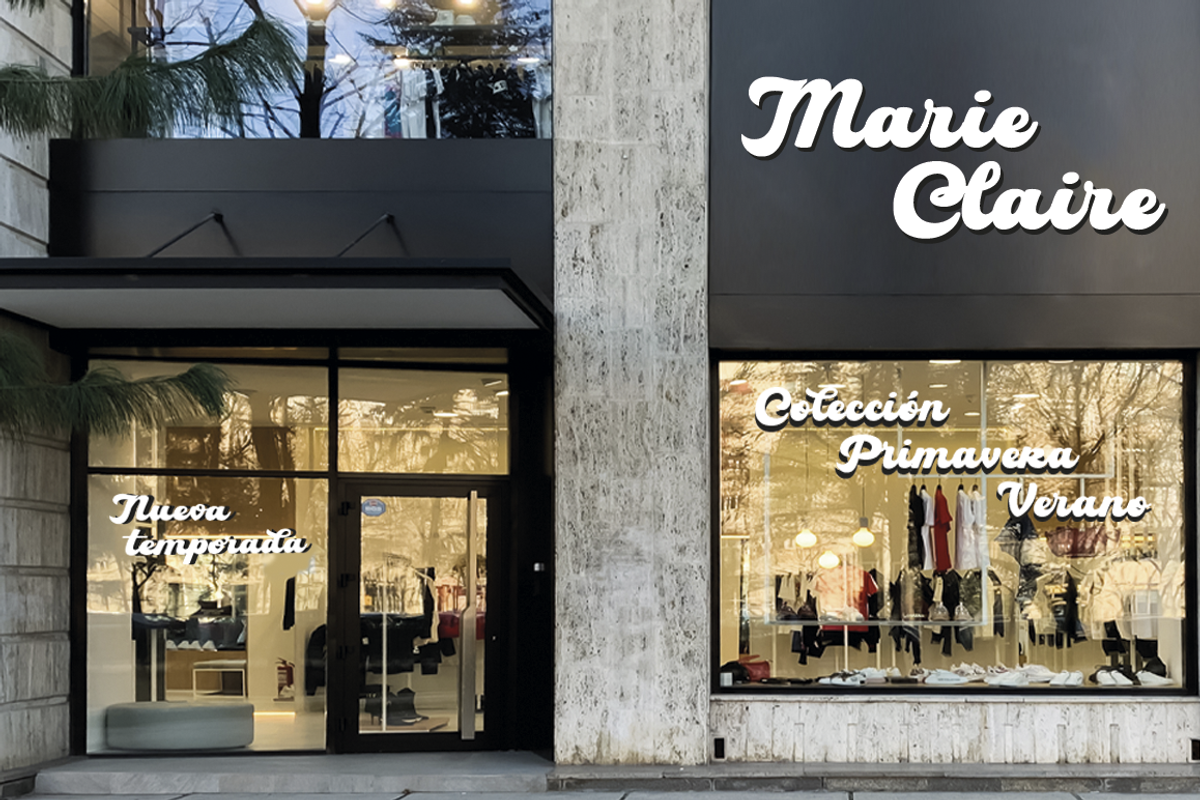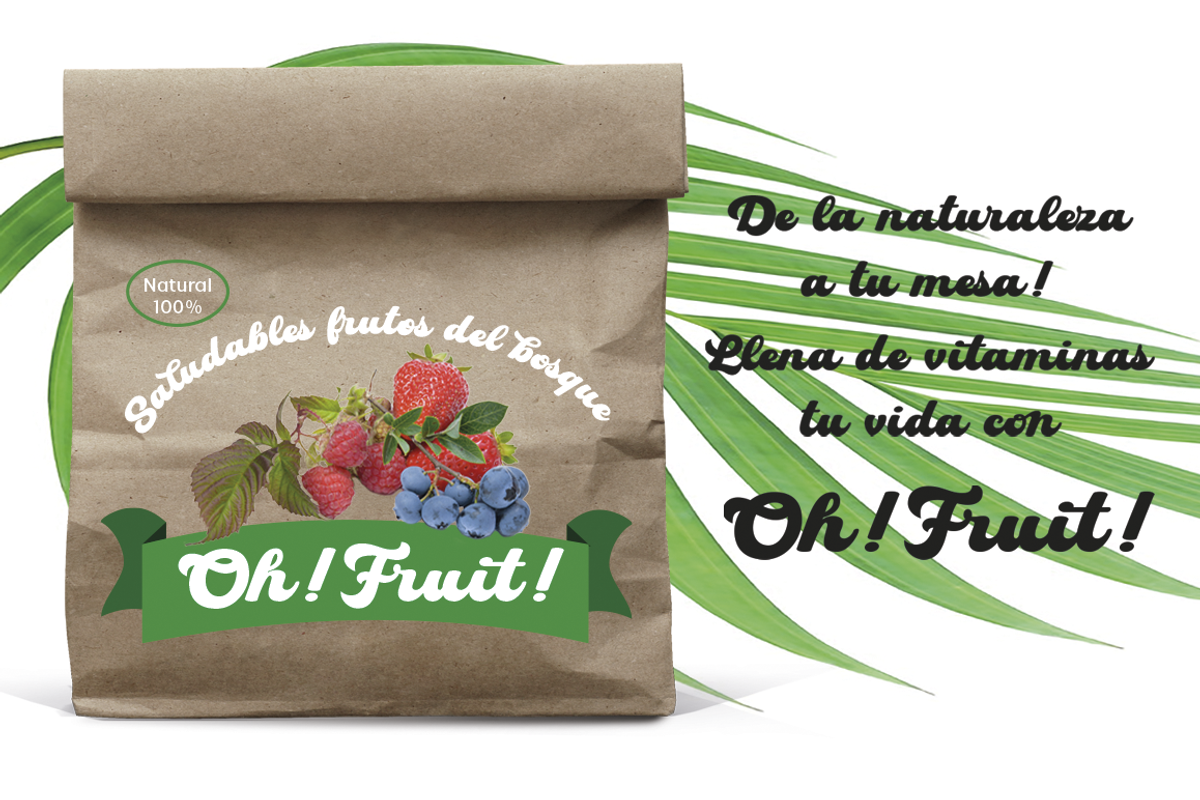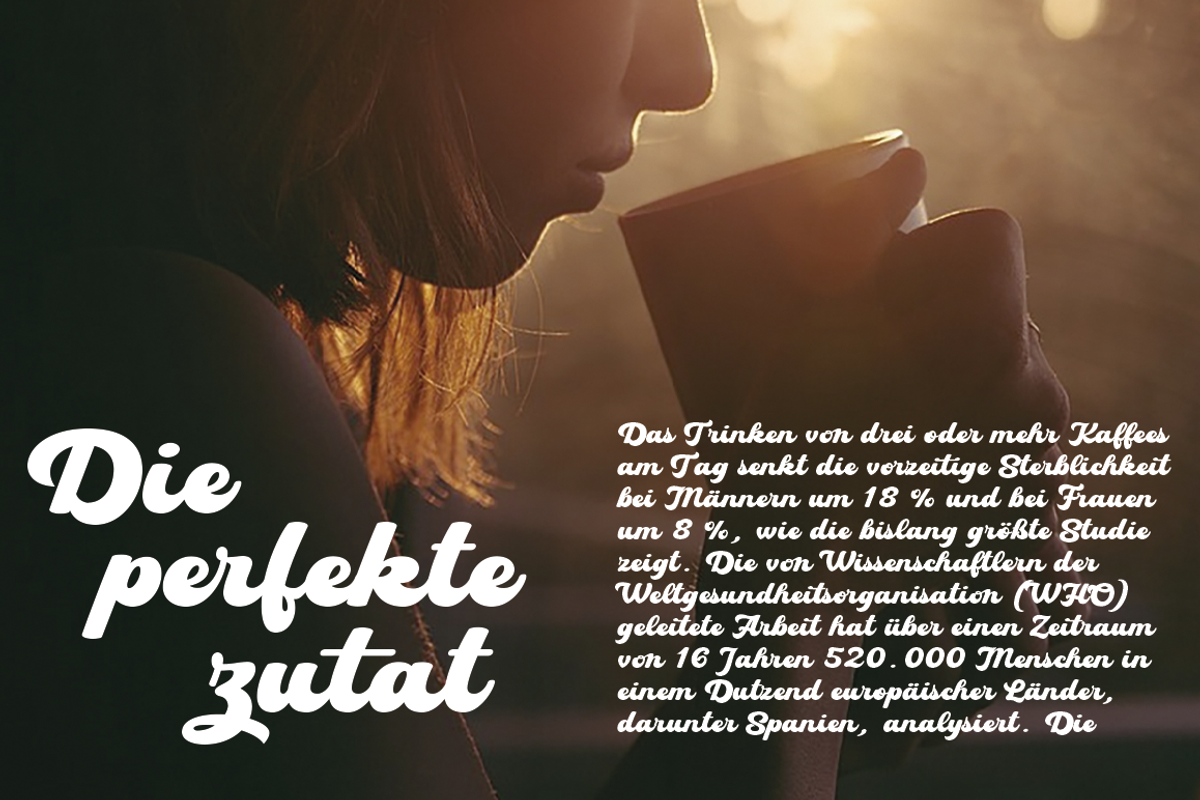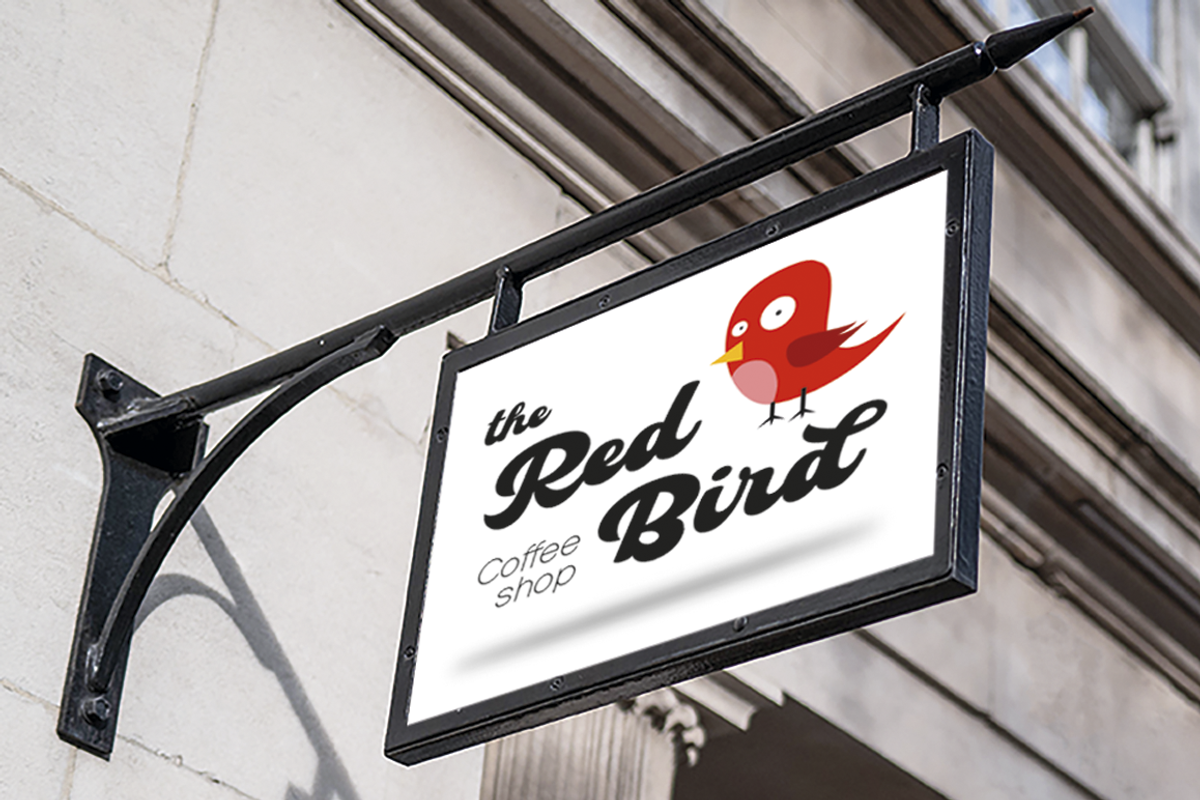
Antu
Designer: Carine de Wandeleer
Publisher: Eurotypo
Are you looking for a new informal and organic writing font? Please take a look at Antu font! Antu font includes Open Type features, a full complement of international characters, standard and contextual alternatives, stylistic sets, and ligatures. All of this makes the text lively and animated, without the monotony of obviously repeating letterforms. Antu font is the perfect choice for titles, logos, posters, packaging, invitations, greeting cards, magazine and book covers, children's items, fashion, and wherever you want! I hope you enjoy it